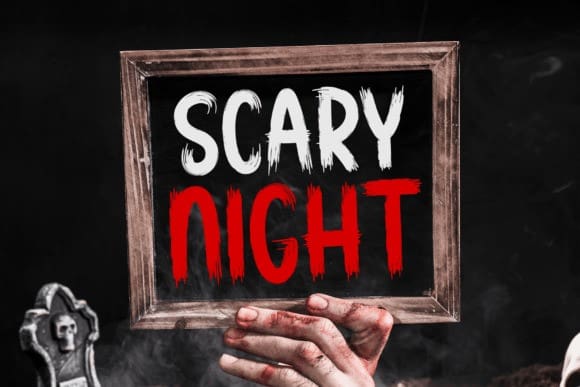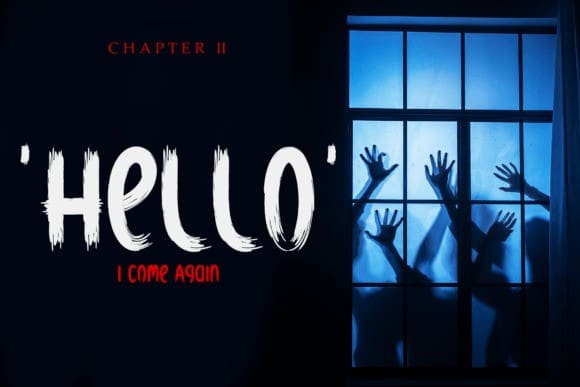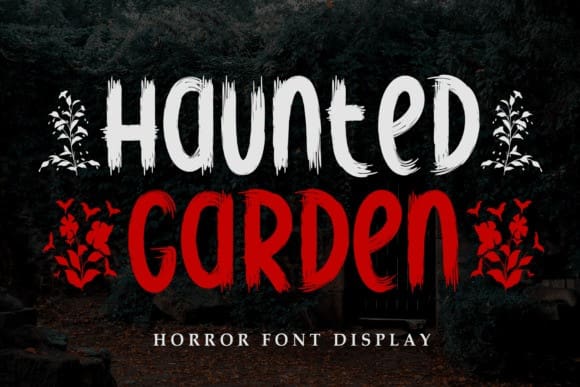
Haunted Garden Font
Haunted Garden font is a captivating and mystical typeface. The font embodies the spirit of a hauntedgarden with its twisting vines, delicate leaves, and mysterious tendrils that intertwine with each letter.
The “Haunted Garden” font is perfect for a range of Halloween-themed designs, invitations, party decorations, or any project that requires an element of mystery and enchantment.